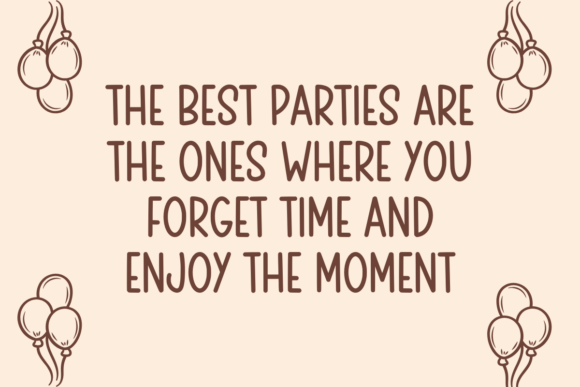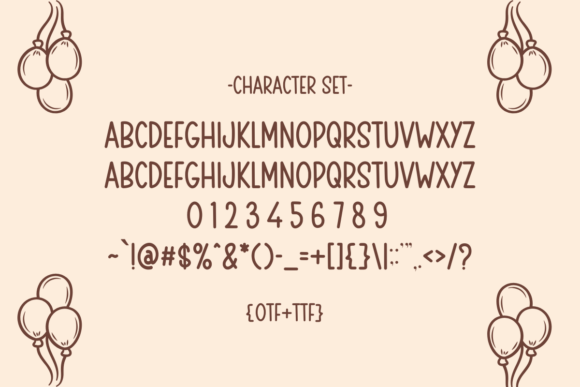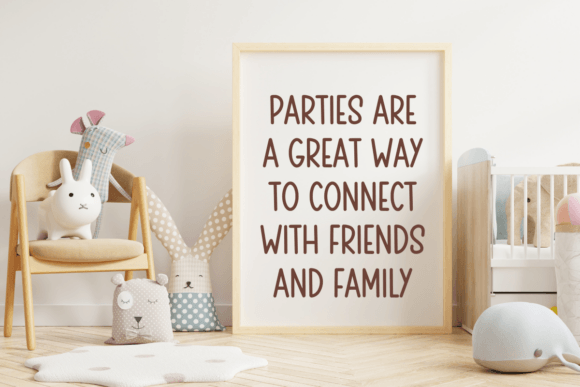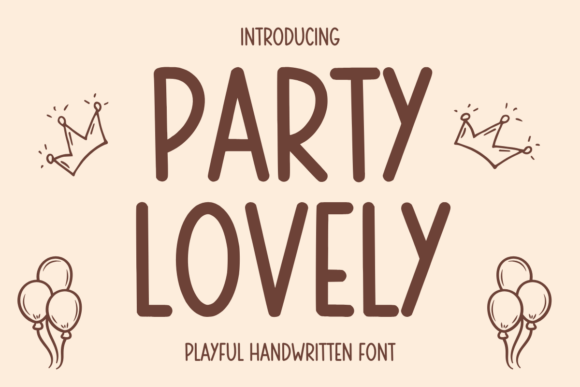
Introduction to Party Lovely Font
Introducing Party Lovely, a delightfully charming handwritten font that exudes natural originality.
Infuse a sense of authenticity into your KDP interiors, planners, journals, diaries, and printables with this perfectly crafted font Transform everyday notepads, daily planners, schedules, and organizers into artistic pieces.
Key Features of Party Lovely Font
Why Choose Party Lovely Font?
Party Lovely Font offers exceptional quality and versatility, making it a valuable addition to your design toolkit. Whether you’re creating for personal projects or commercial use, Party Lovely Font delivers professional results.